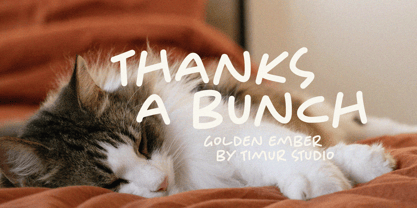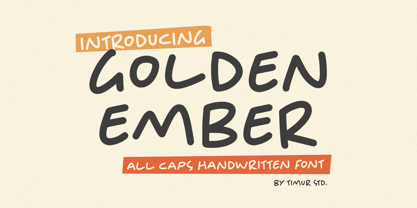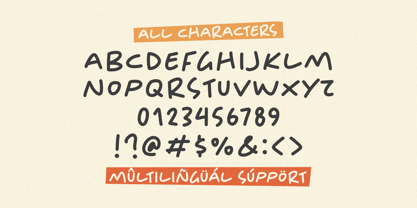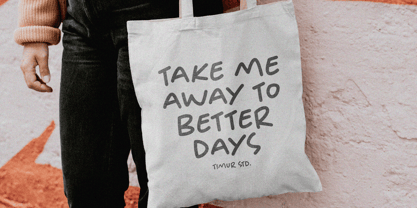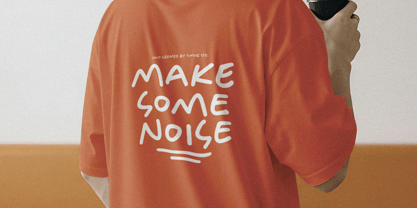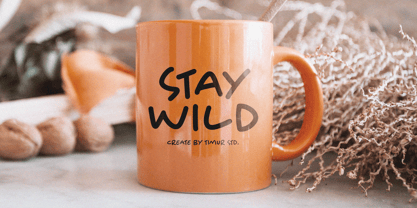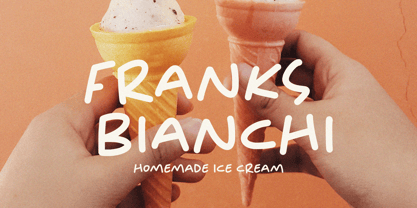
Golden Ember
by Timurtype
The Golden Ember Font Family was designed by Wara Sigit Tri Pamungkas and published by Timurtype. Golden Ember contains 1 styles. More about this family
Introduced by Timurtype Studio!
Golden Ember is a All Caps Handwritten Font
Golden Ember is a bold, all-caps handwritten font with a fiery personality. Its rugged strokes and imperfect lines give it an authentic, handcrafted feel—perfect for logos, posters, and statement designs that need a touch of raw energy and warmth.
Golden Ember Font also supports multilingualism
Designers: Wara Sigit Tri Pamungkas
Foundry: Timurtype